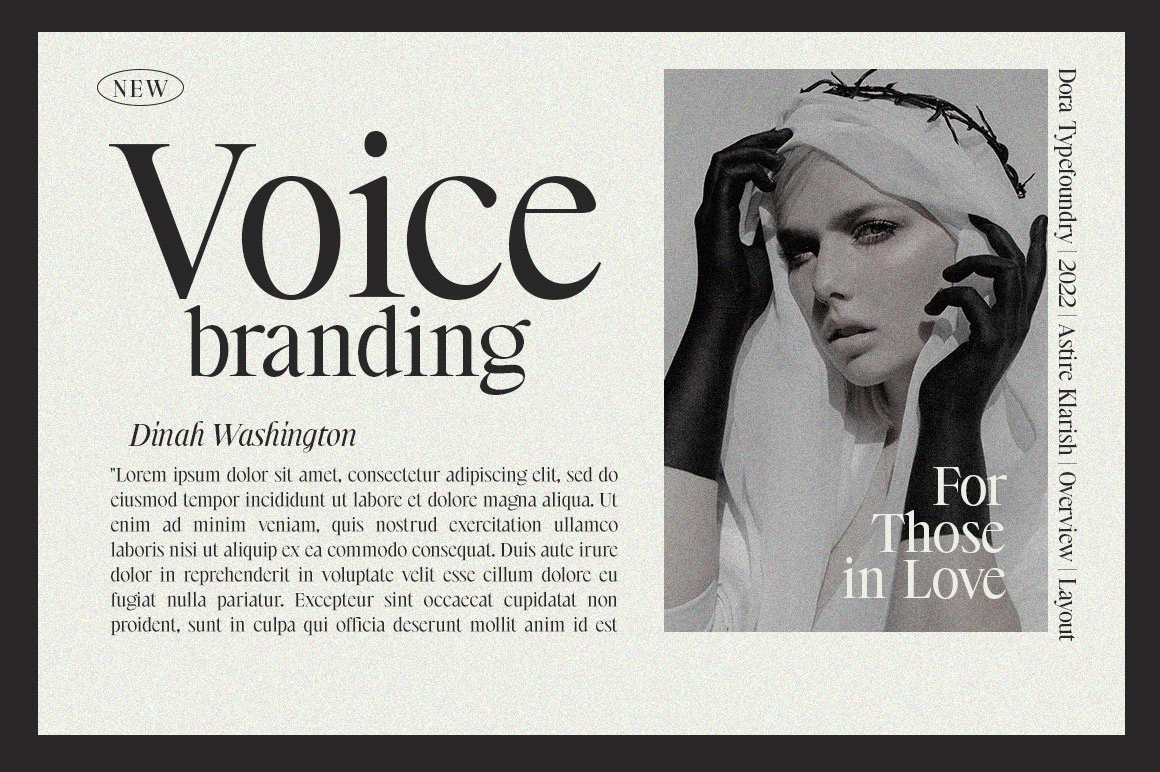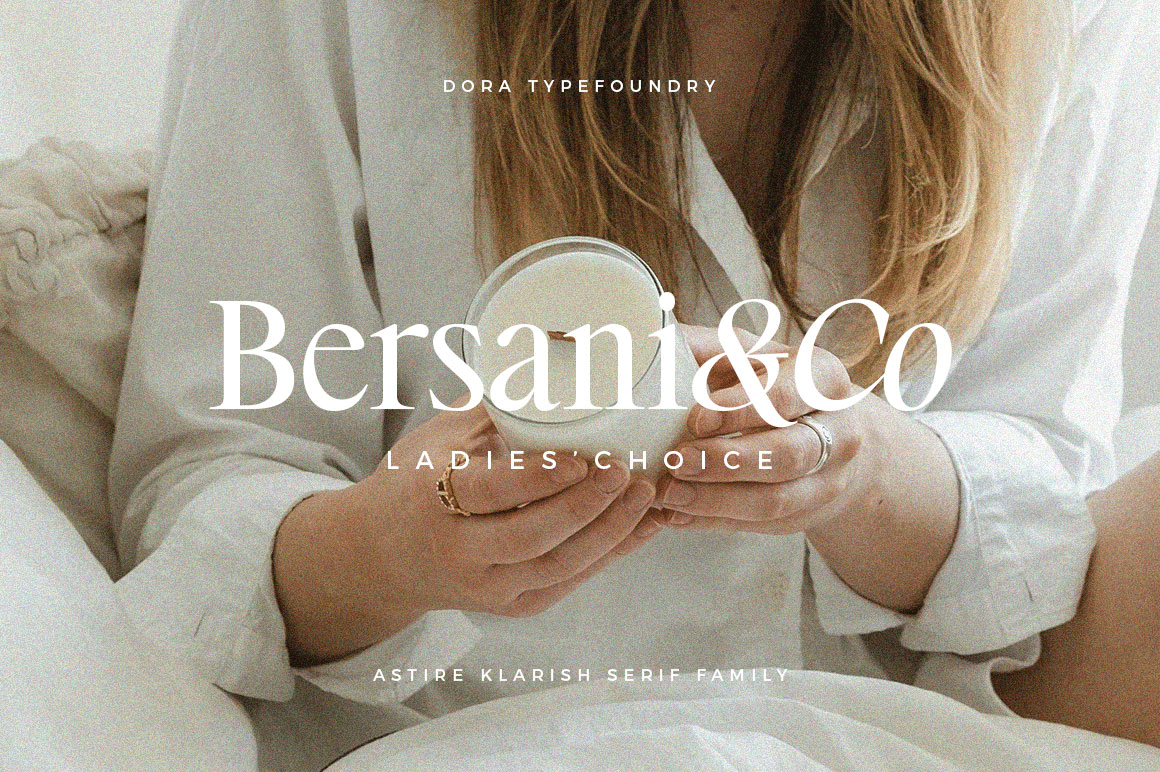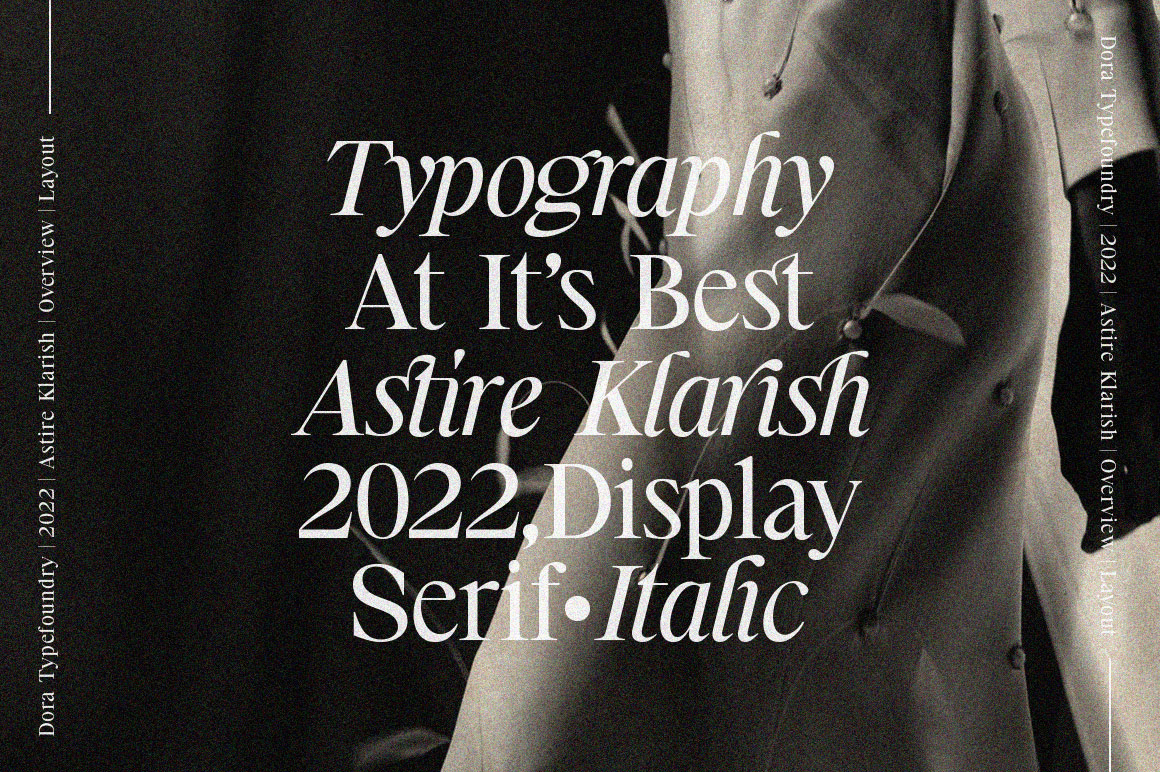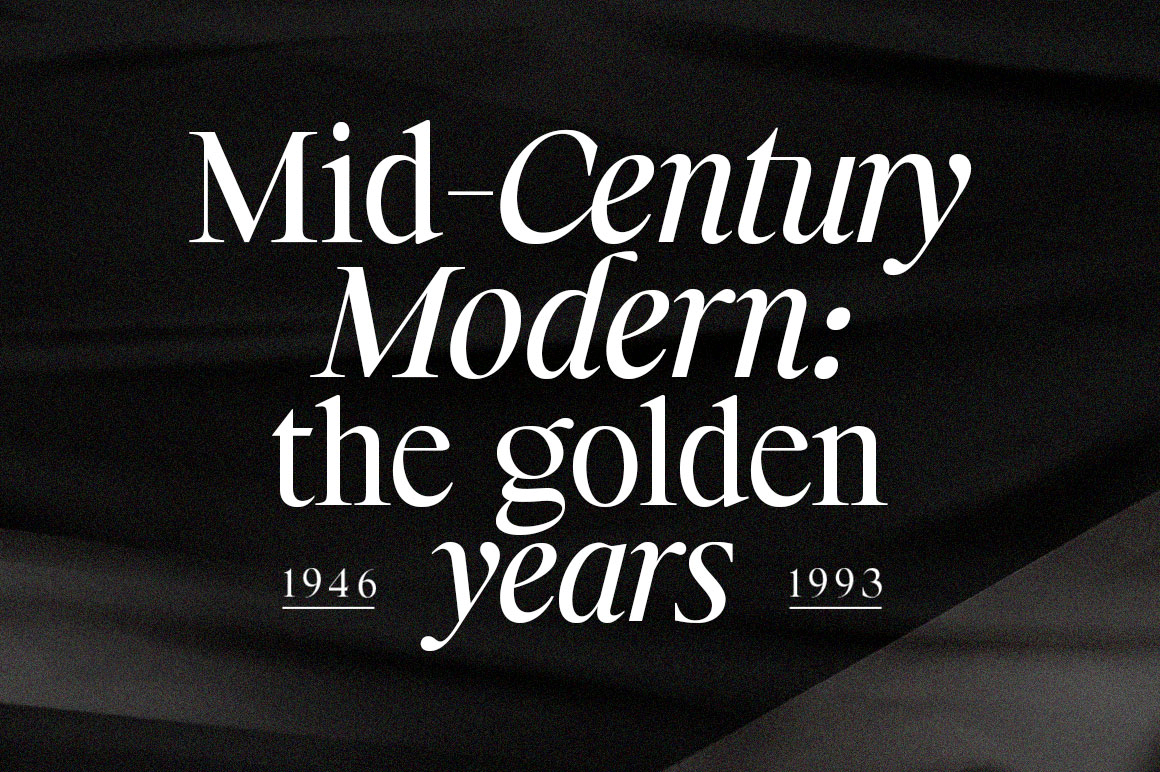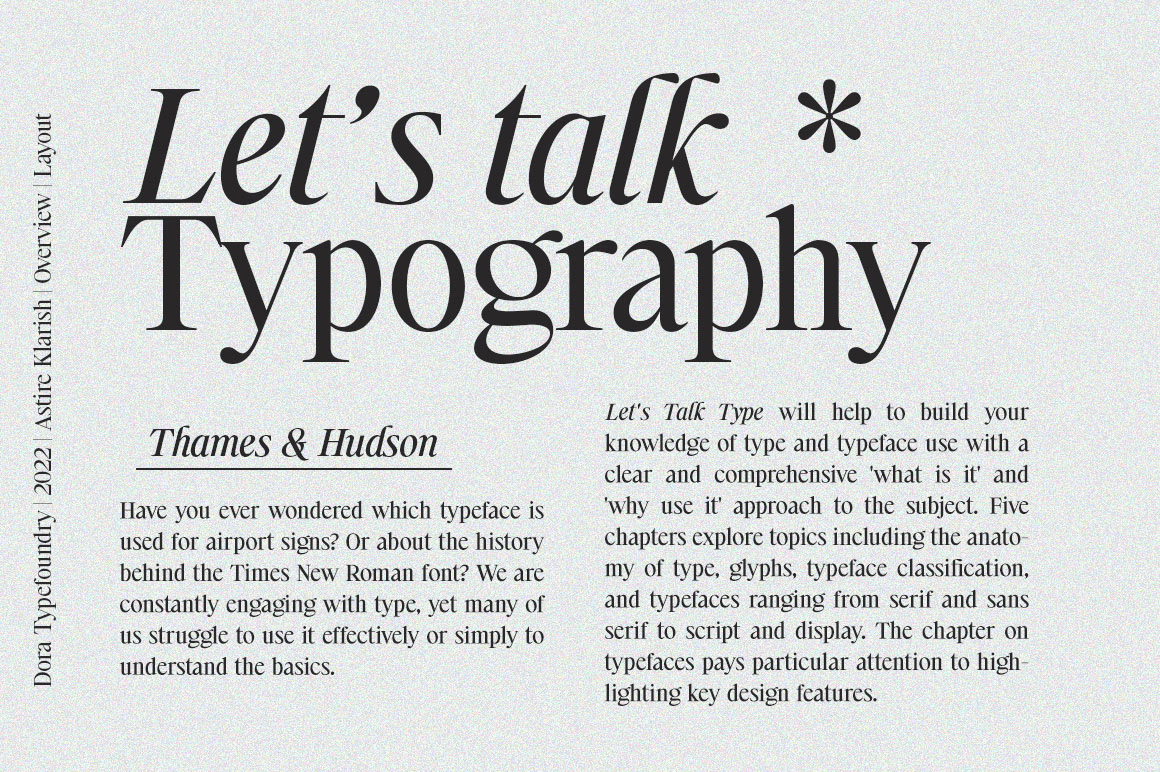
About Astire Klarish
Introducing, Astire Klarish is a new retro serif with all clean and soft lines, tight curves, a combination of regular and italic versions adding to the appeal and trendy elegant look! This serif typeface that looks amazing in both large and small settings…